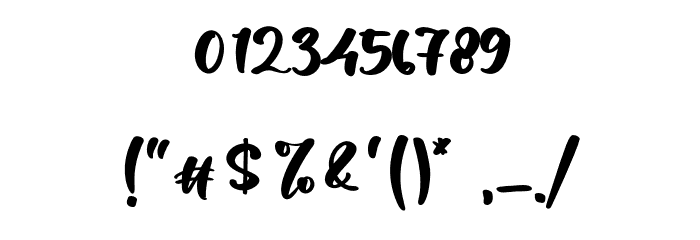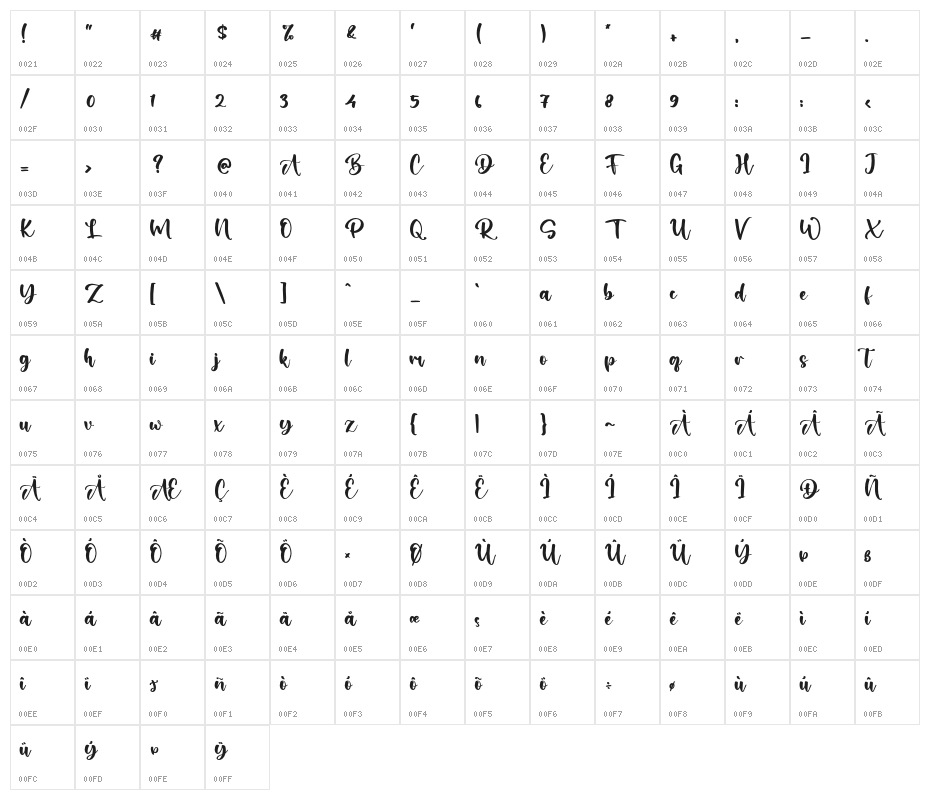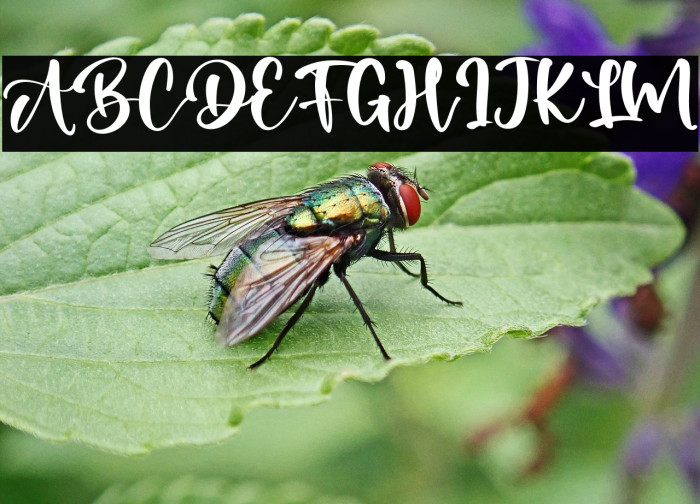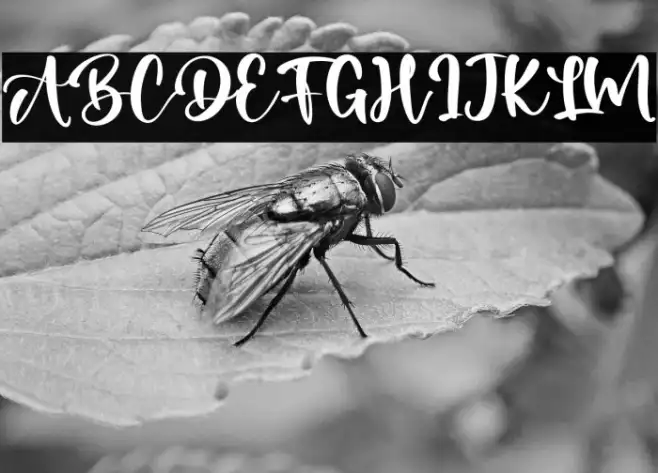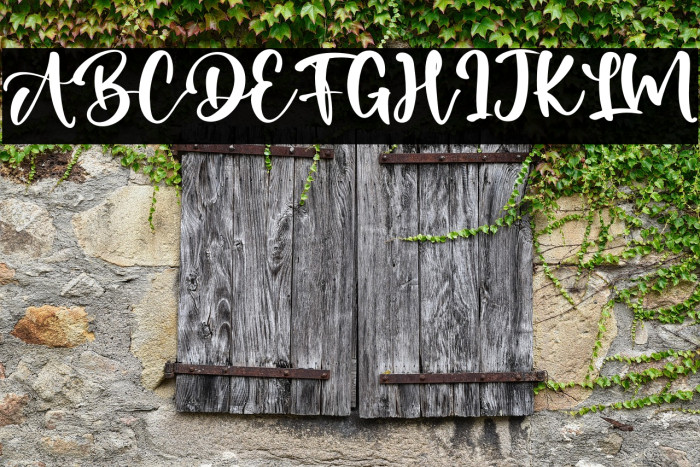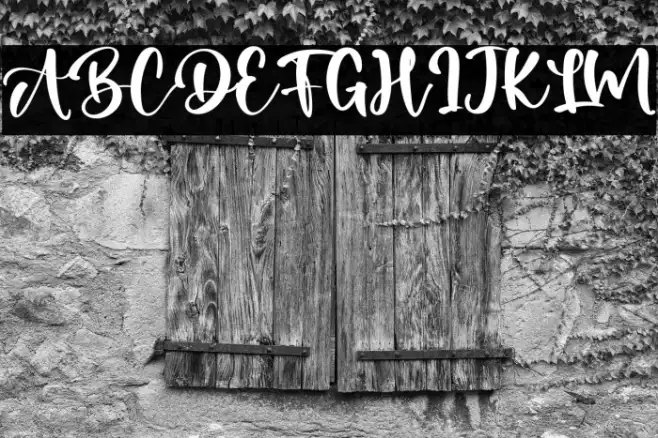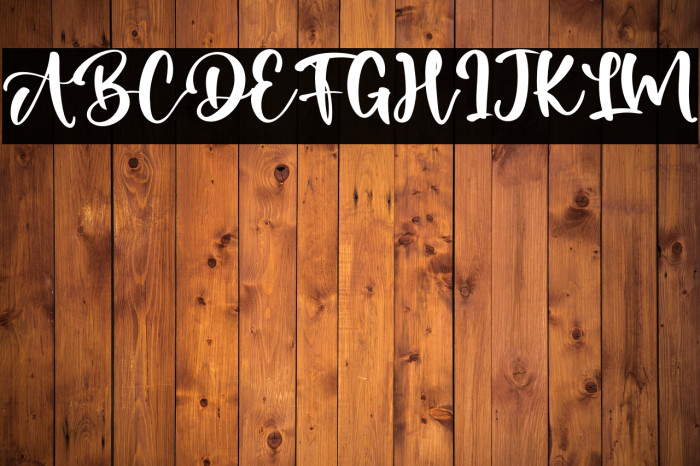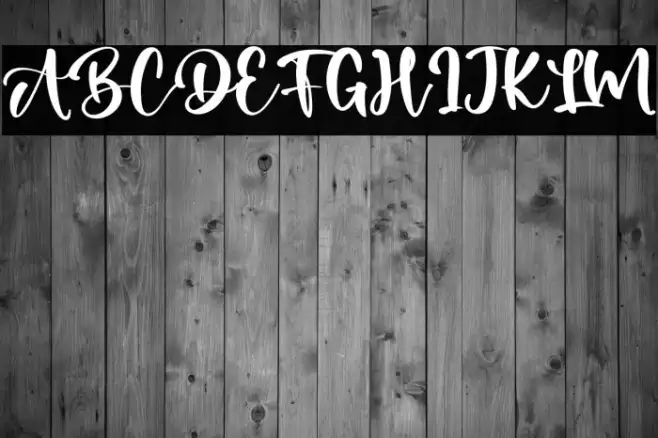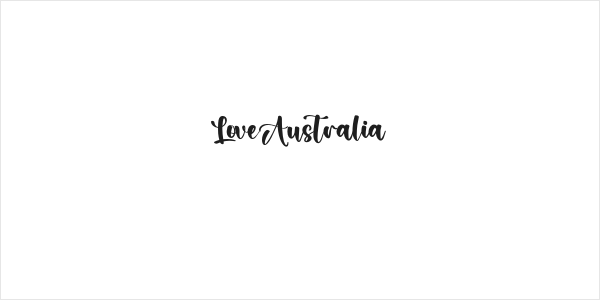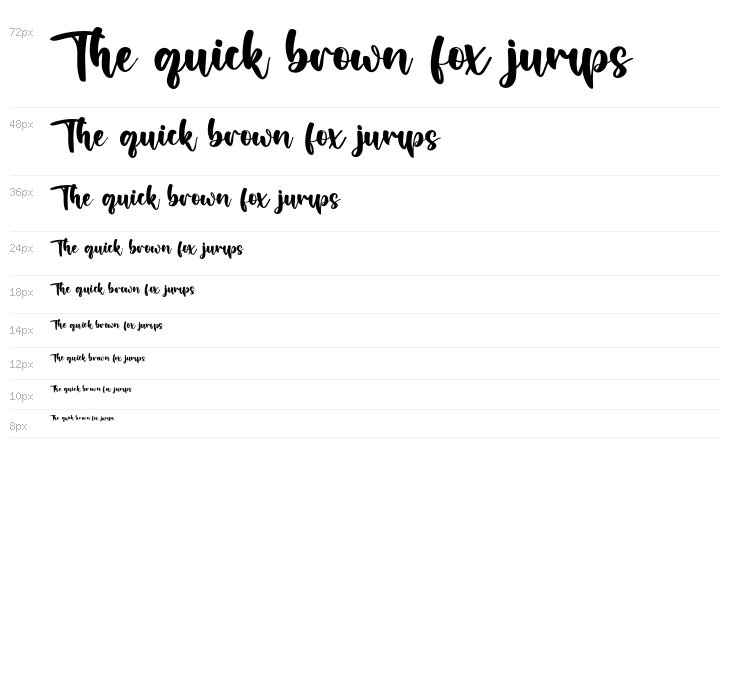
LoveAustralia Font
LoveAustralia Description
This font features a bold, flowing script style that exudes elegance and creativity. The uppercase letters are characterized by their sweeping curves and flourishes, giving them a dynamic and artistic appearance. The lowercase letters maintain a consistent flow, with smooth connections between characters that enhance readability while preserving the font's decorative nature. The numerals are equally stylish, with a playful yet sophisticated design. Special characters are crafted with the same attention to detail, ensuring a cohesive look across all elements. This font is ideal for projects that require a touch of elegance and flair.